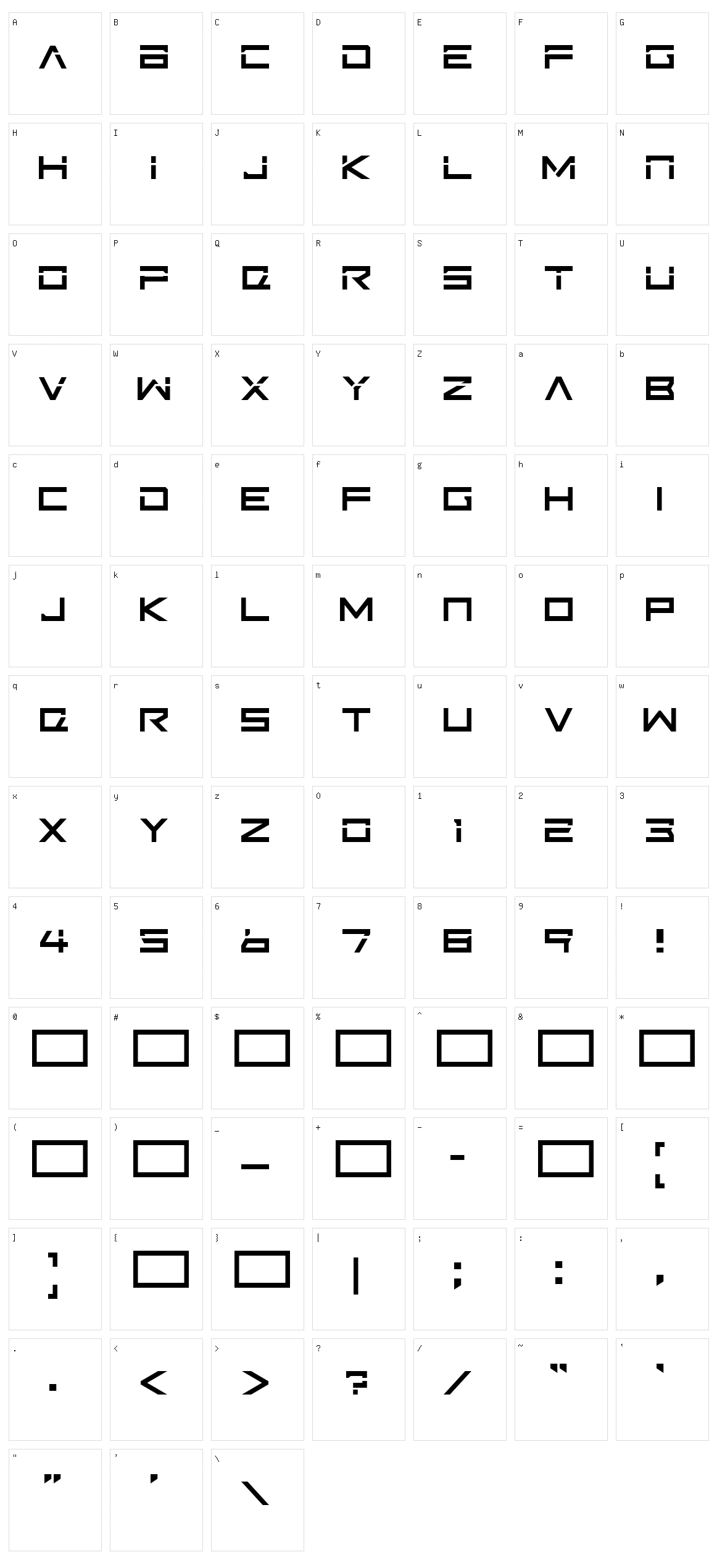
The free font ISL Fade to Blak is carefully designed by Isurus Labs, showcasing a thoughtful balance of creativity and usability and falls under the Square font style. When you download the ZIP file, it contains only 7.29 KB of font files, making it lightweight and quick to download. Please review the license details below to understand permitted usage and distribution rights. If license information is not available, we recommend using this font for personal projects only or contacting the author directly for commercial usage permissions.